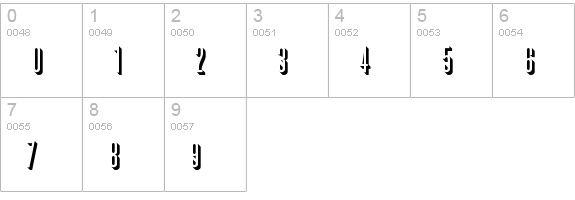
Great Relief font is a modern and stylish typeface that exudes a sense of calm and ease. Its elegant curves and clean lines bring a touch of sophistication to any design project. This font is perfect for creating a feeling of tranquility and relaxation in your work. With its smooth and flowing characters, Great Relief font adds a sense of lightness and freedom to your text. Best of all, Great Relief font is completely free to download at FontsMarket.com. So you can easily enhance your projects with this beautiful font without any cost. Whether you're designing a website, creating a logo, or working on a print project, Great Relief font is sure to bring a sense of relief and peace to your work. Download it today and experience the freedom of expressing yourself with this stunning typeface.